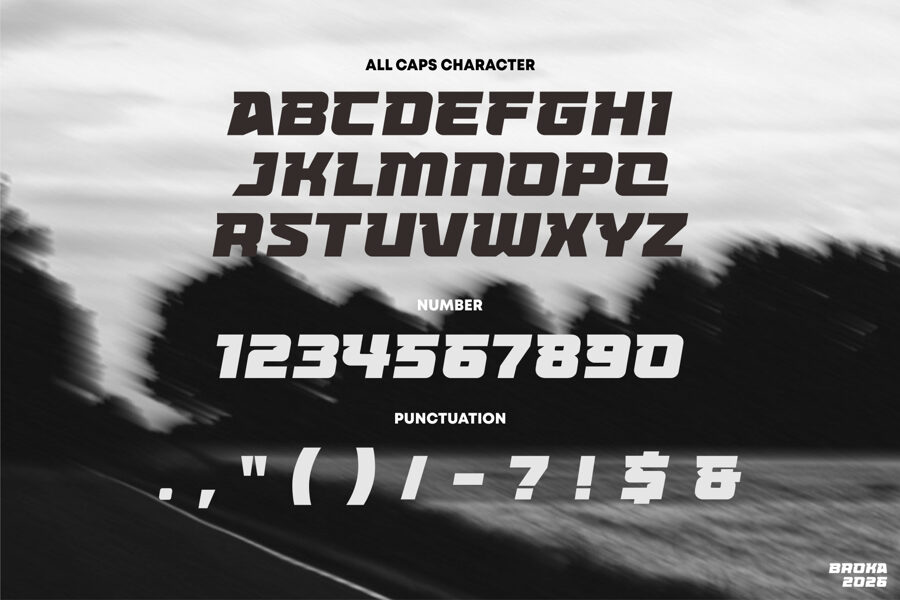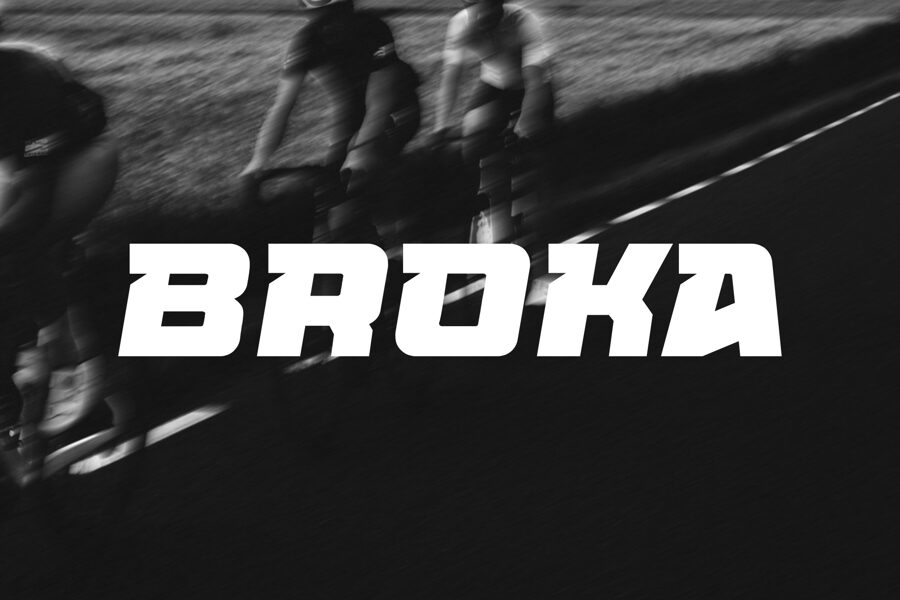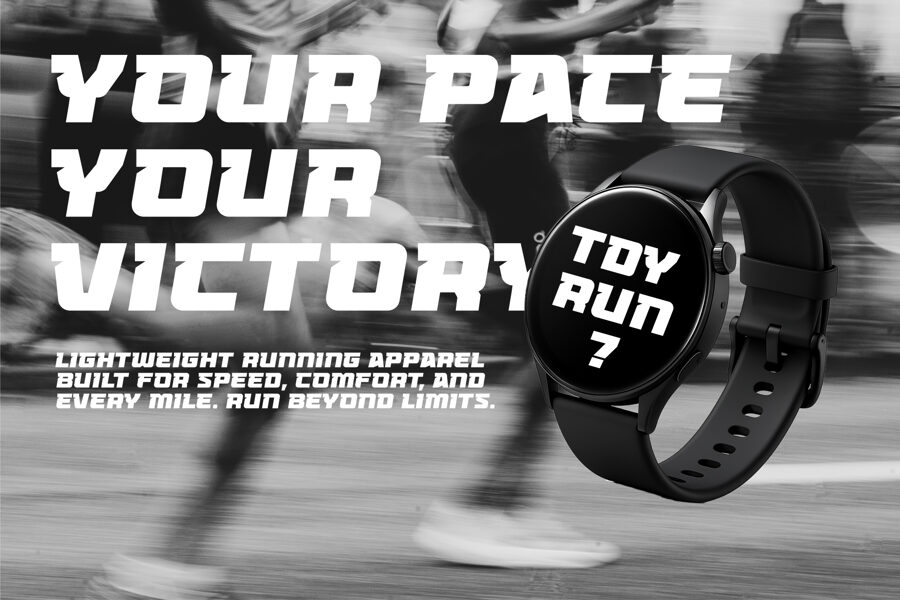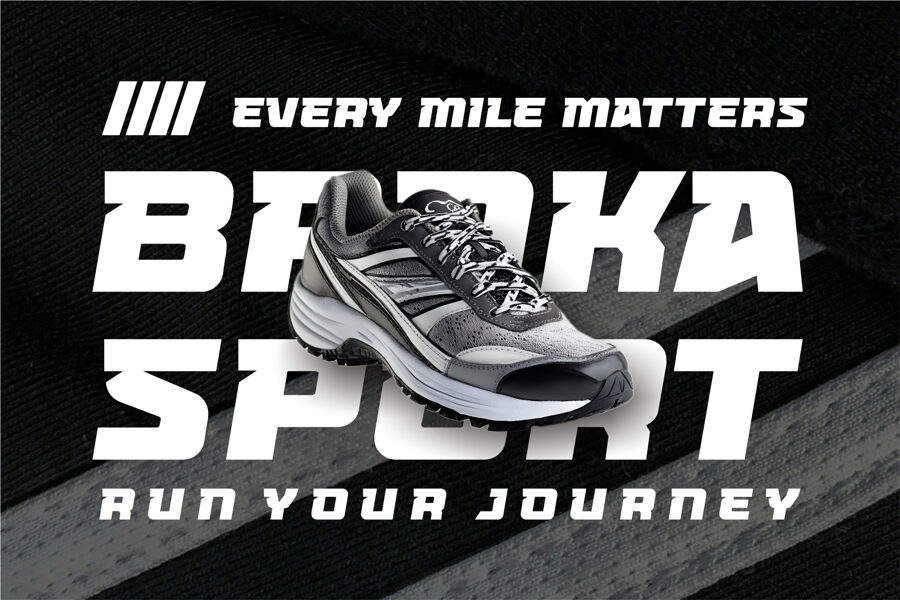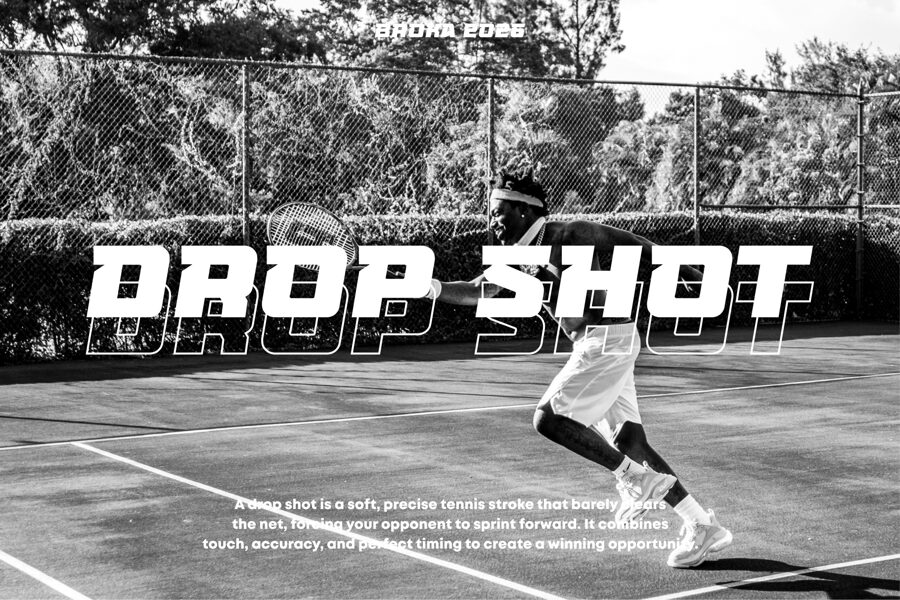
Broka Font
BROKA is a bold sports display font engineered for speed, power, and peak performance. With aggressive angles, strong letterforms, and a modern athletic character, it is designed to make every headline stand out with confidence and impact.
Perfect for sports branding, esports, team logos, gym identities, football and basketball graphics, racing events, fitness campaigns, apparel, social media, and high-energy promotional designs. BROKA combines excellent readability with a bold, competitive style that captures the spirit of modern sports.